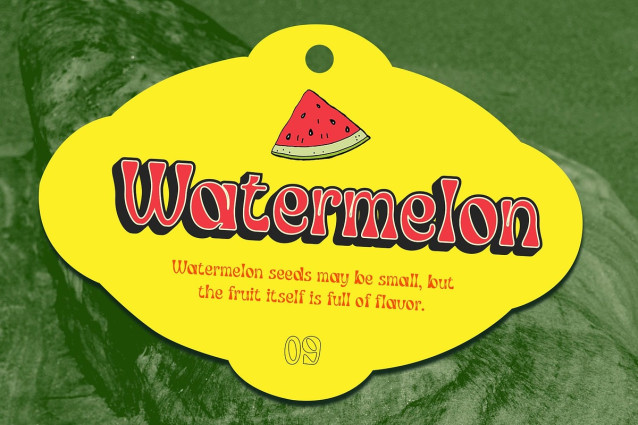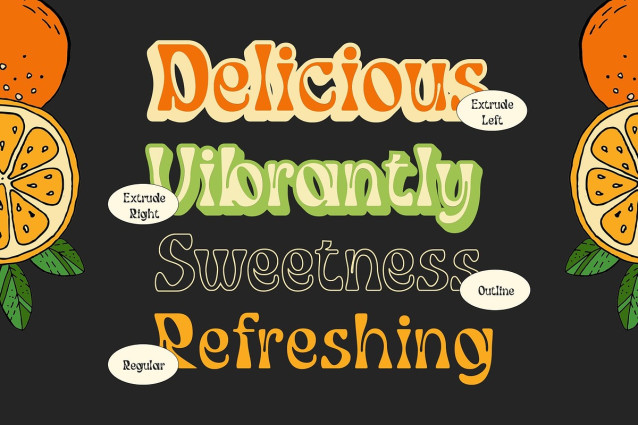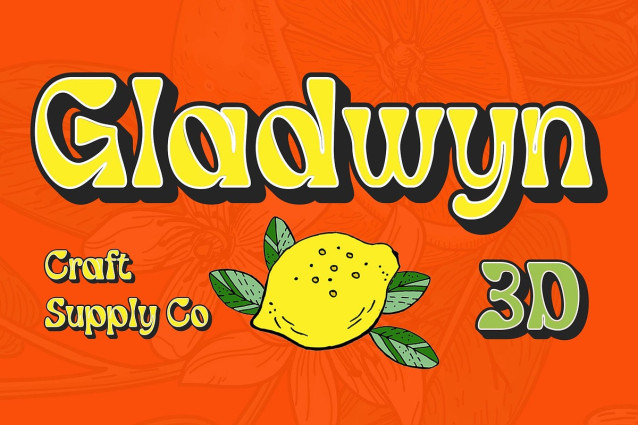
Gladwyn 3D Font
Gladwyn 3D Font is a bold display font that reimagines traditional typography through reverse contrast, where the usual weight distribution is flipped for a quirky and unconventional look. This unique characteristic gives it a funky, vintage-inspired aesthetic, blending playful energy with a striking presence.
Dynamic 3D Effect for Depth and Visual Power Enhancing its bold and expressive nature, the built-in 3D effect creates a strong sense of depth and dimension, making each letter appear as if it’s popping off the page. This feature not only adds a tactile quality to the font but also makes it highly engaging for display purposes. Whether used in headlines, posters, album covers, or merchandise.
Perfect for Modern Vintage Aesthetics Inspired by retro signage, old-school advertisements, and playful typography, Gladwyn 3D captures the essence of nostalgia with a contemporary twist. Its bold shapes, exaggerated proportions, and high-impact design make it ideal for branding, packaging, magazine covers, and creative marketing materials.
Versatile for Expressive and Eye-Catching Designs Whether you’re working on bold logo designs, editorial layouts, social media graphics, or advertising campaigns, Gladwyn 3D is a versatile typeface that adapts to a variety of creative applications. Its distinctive form and playful character make it stand out in any setting, ensuring that your designs leave a lasting impression.